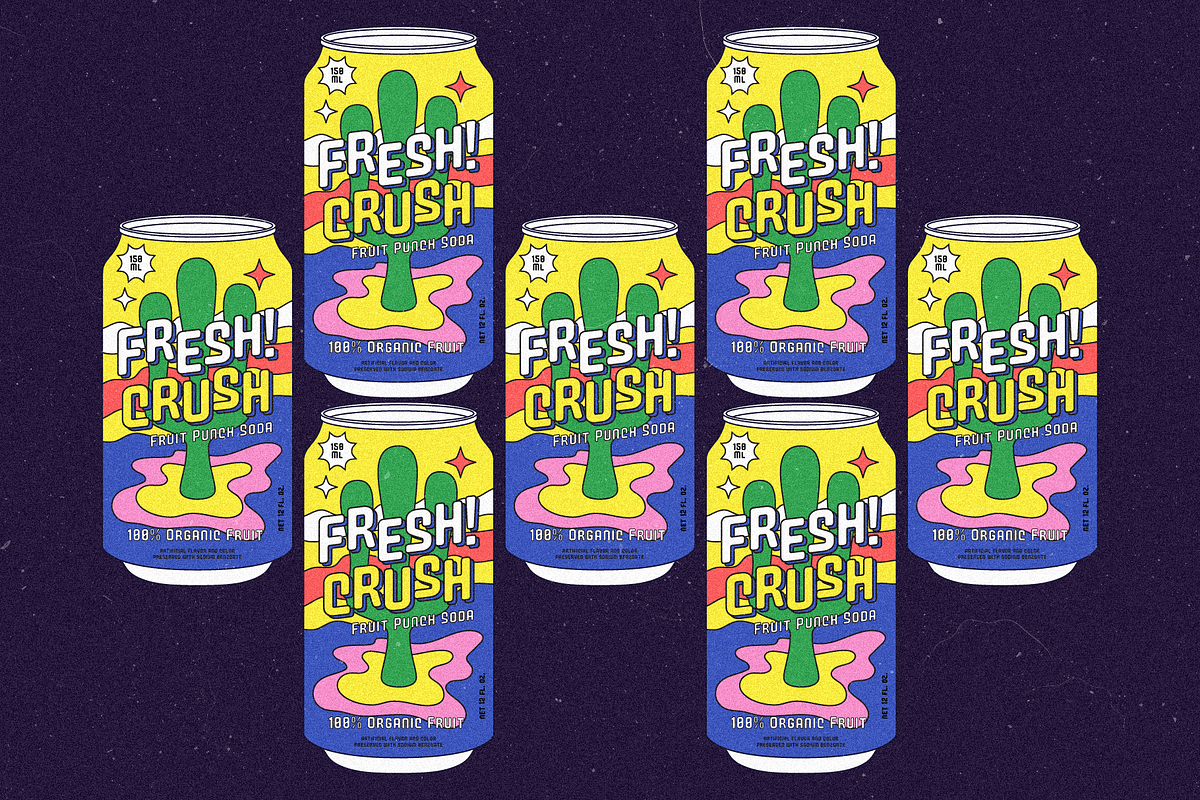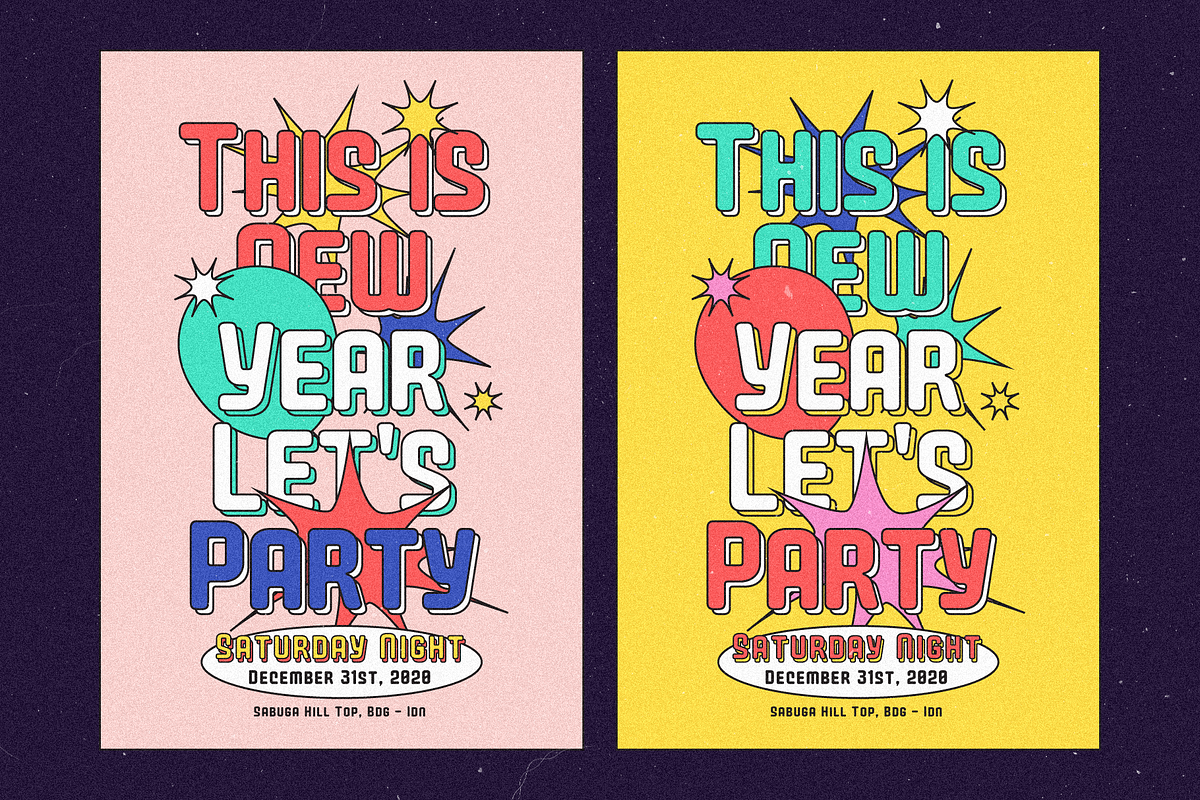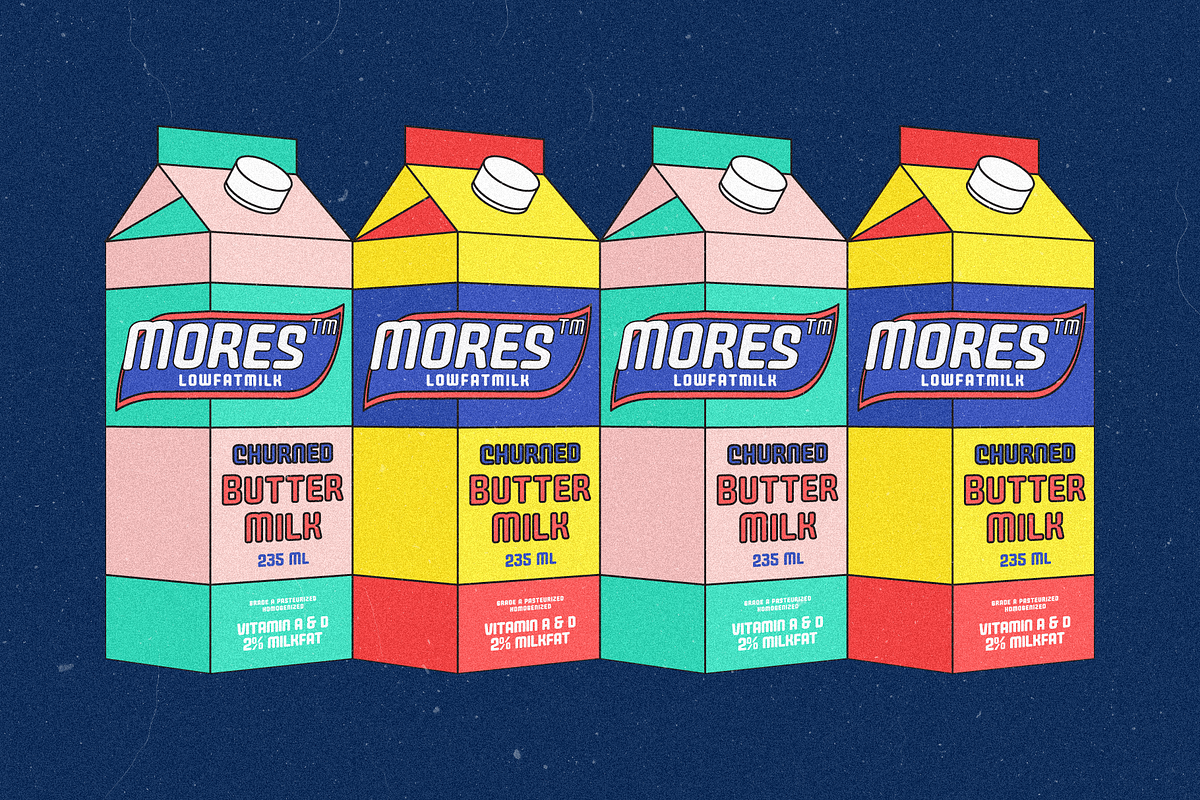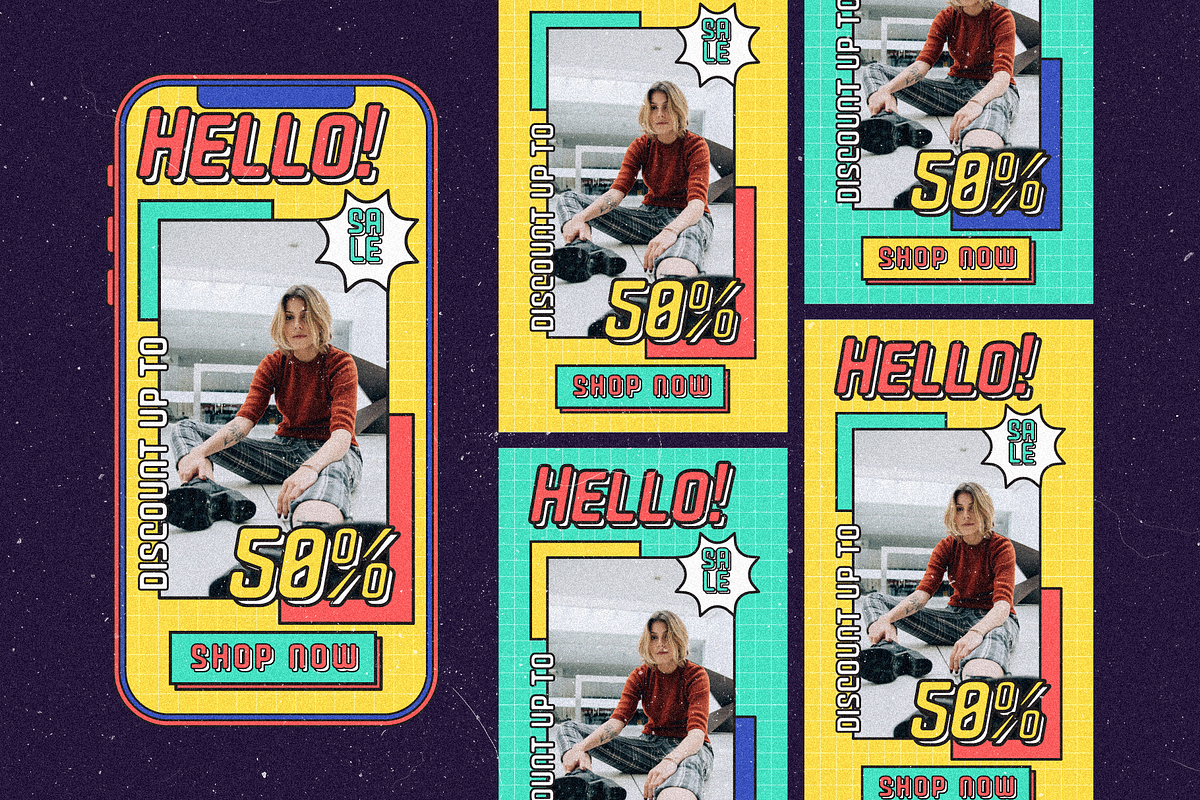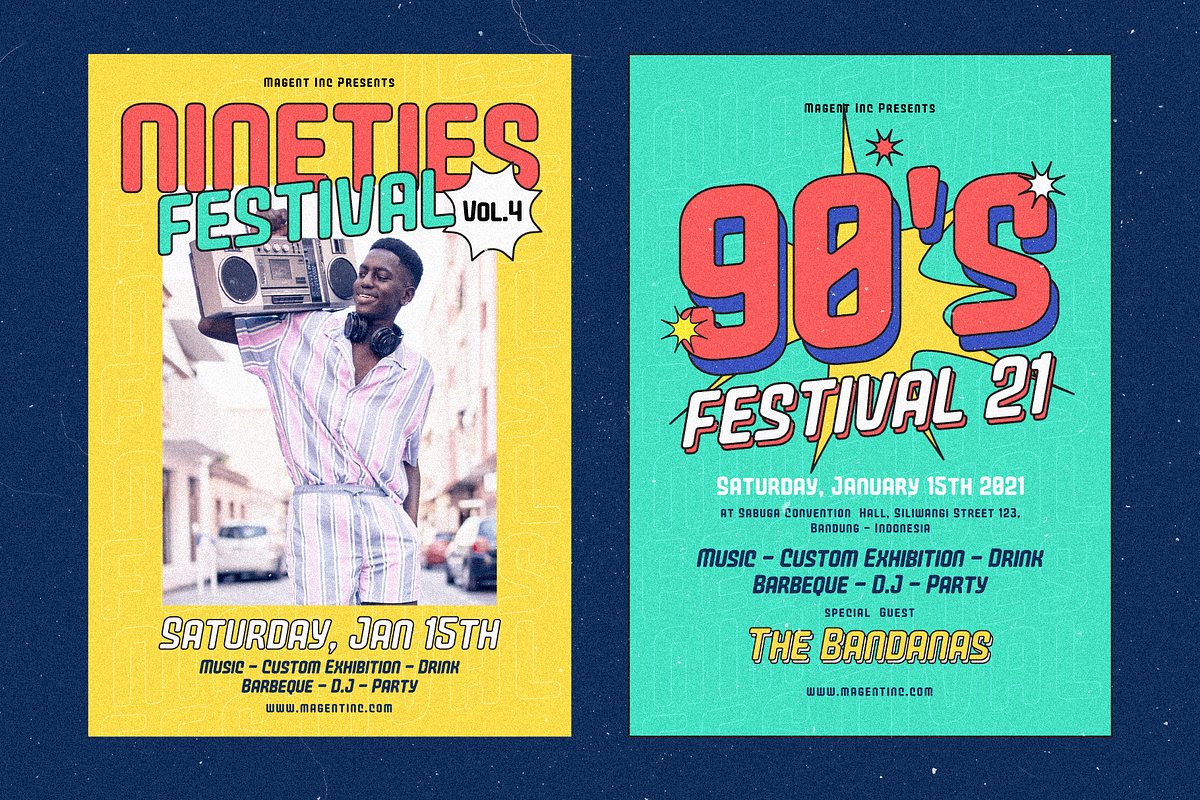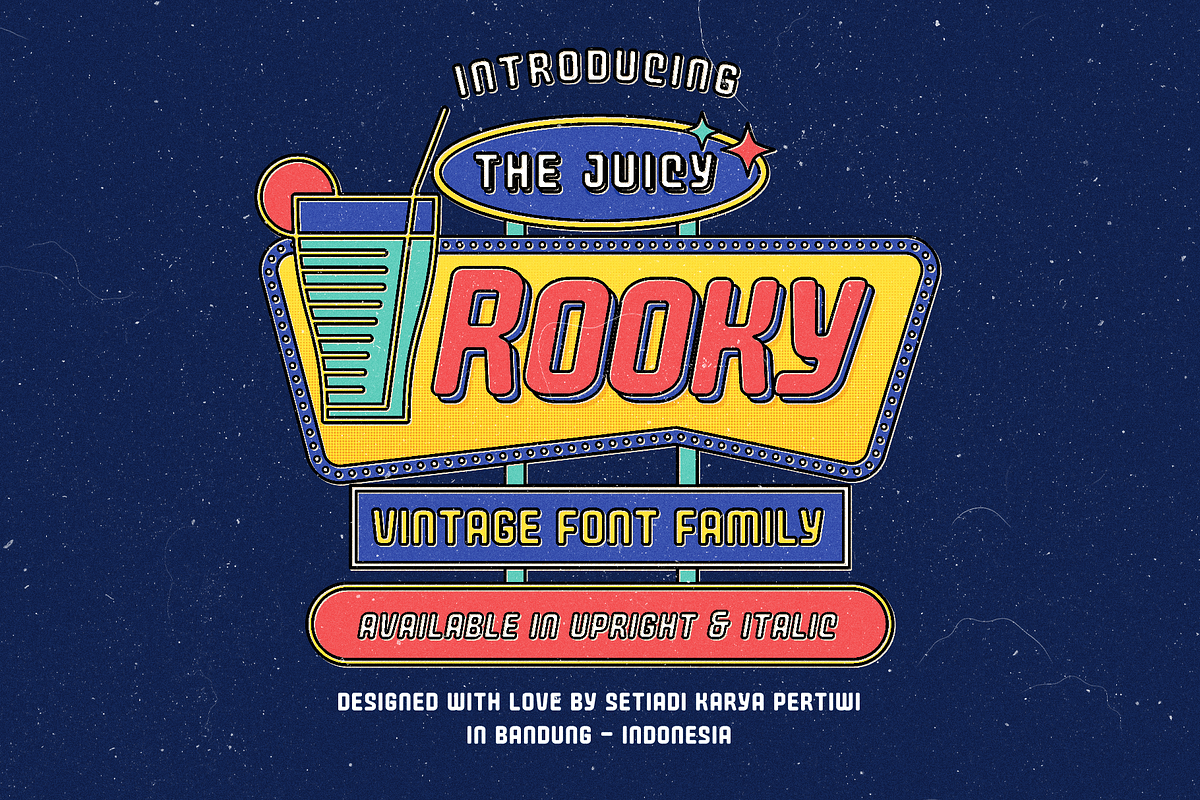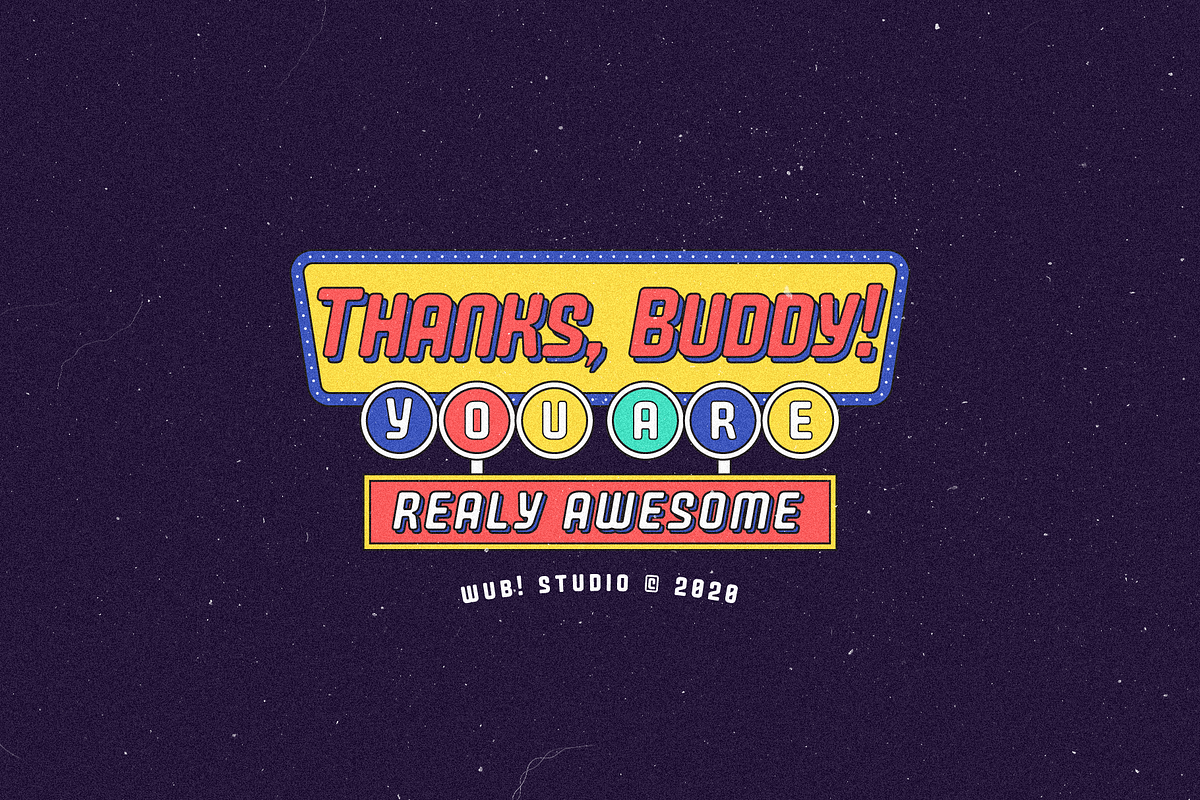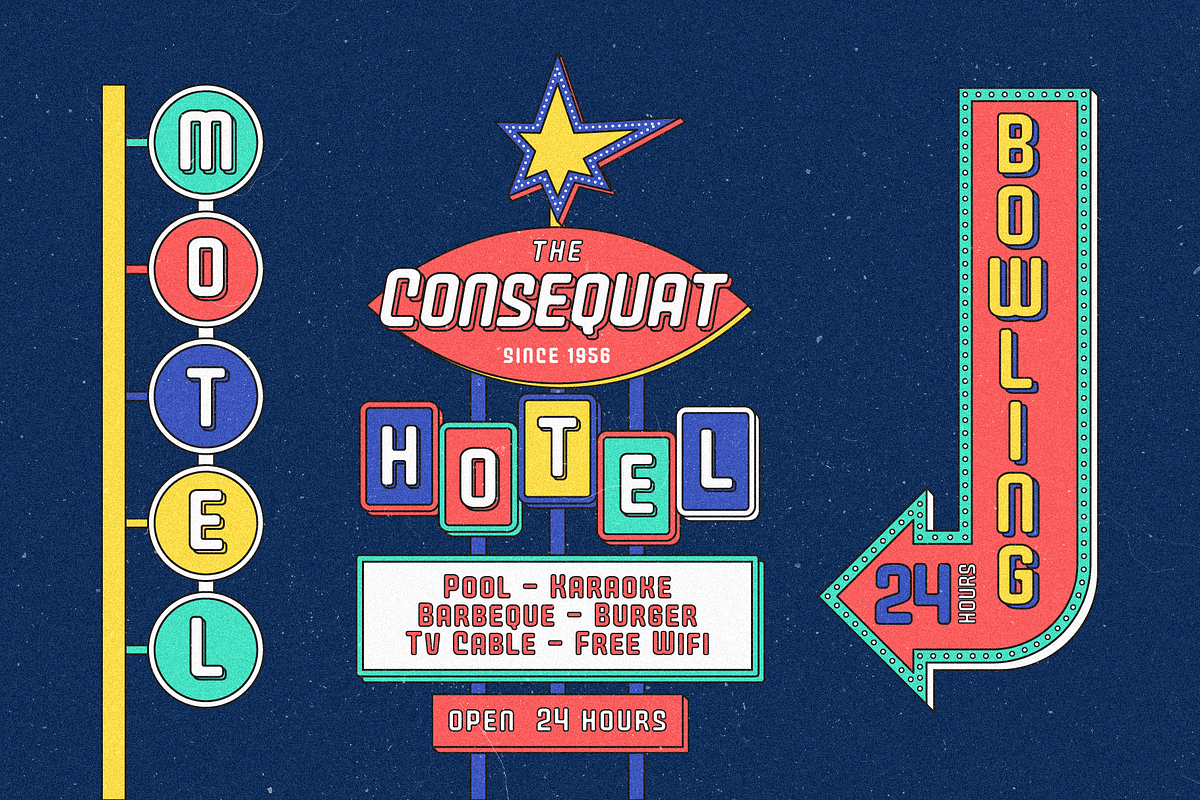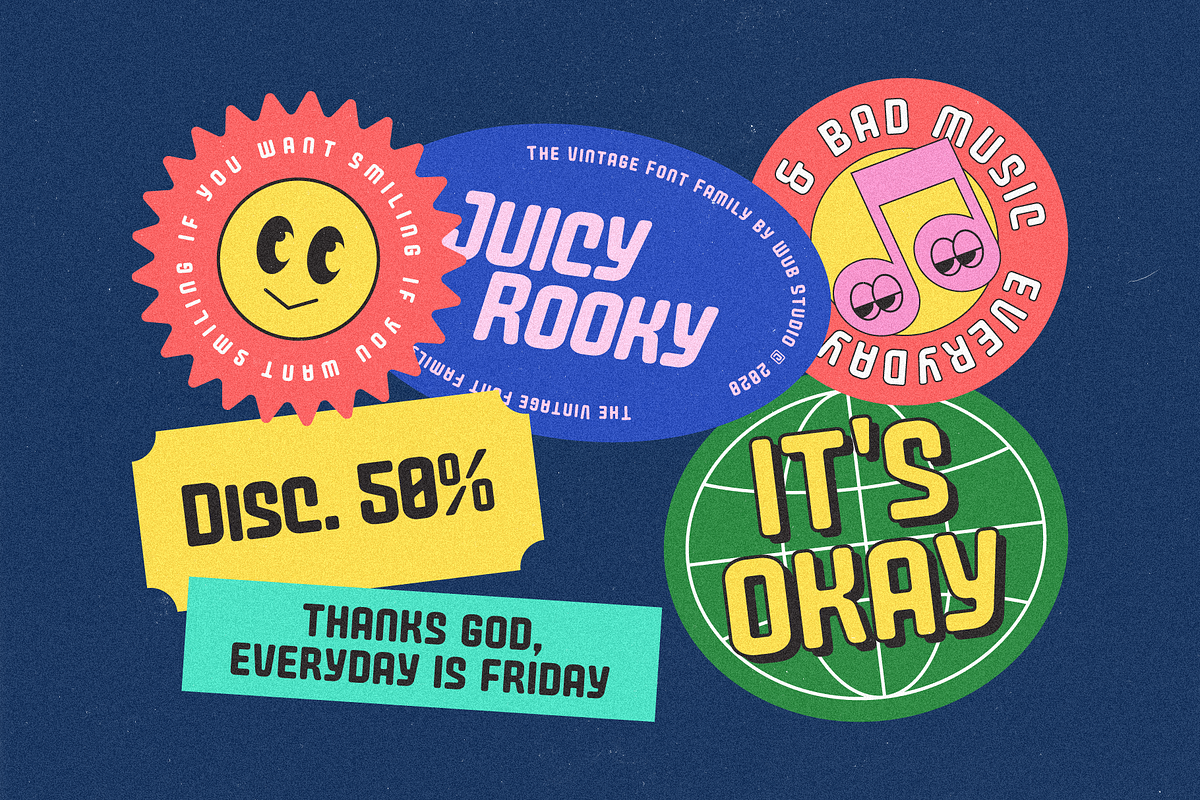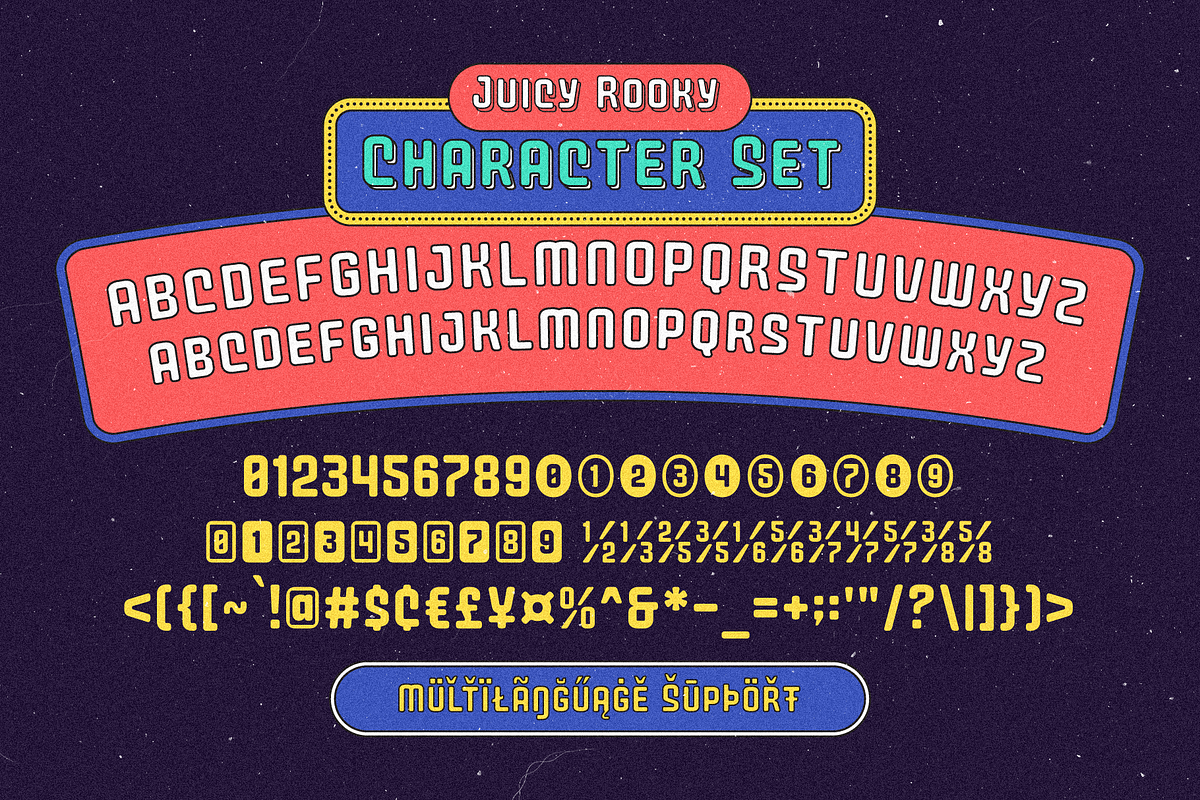
Juicy Rooky Vintage Family
Juicy Rooky is a vintage font family inspired by a restaurant sign in the mid-60s. This font has a very distinctive and strong character, and is easy to read even from a long distance. Therefore, this font is very suitable for outdoor design needs. However, this font is also very cool for creating indoor designs or other printing needs, such as: posters, restaurant menus, flyers, book covers, and others.
This font comes in two styles, namely Uprights and Italic. Combine the two families to get varied and cool results. In the poster preview, it is a reference for you to create a design style and color. But I believe you are cooler than me.